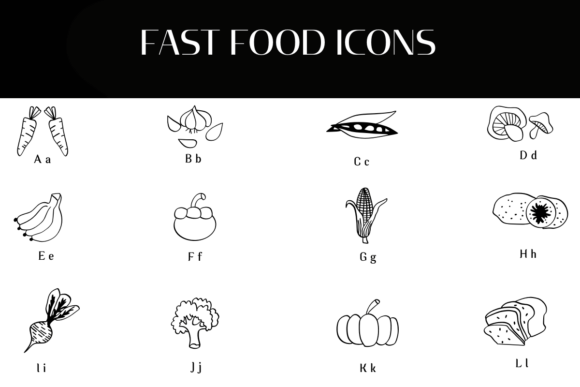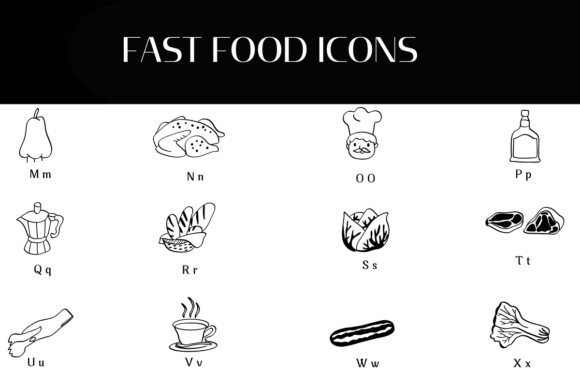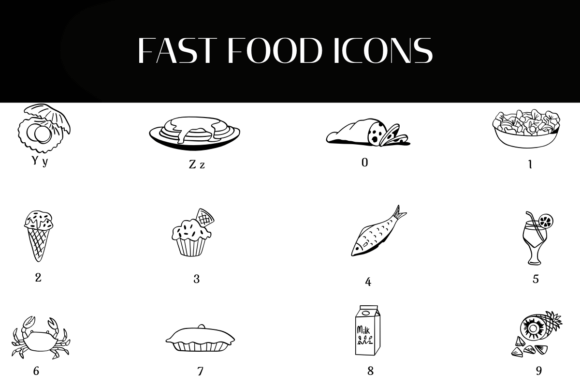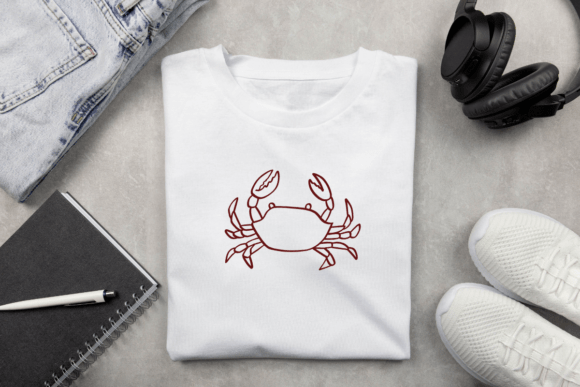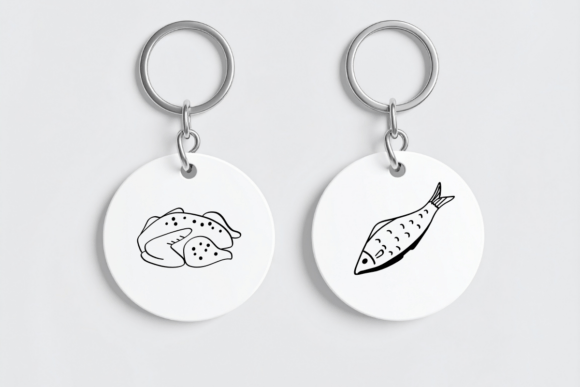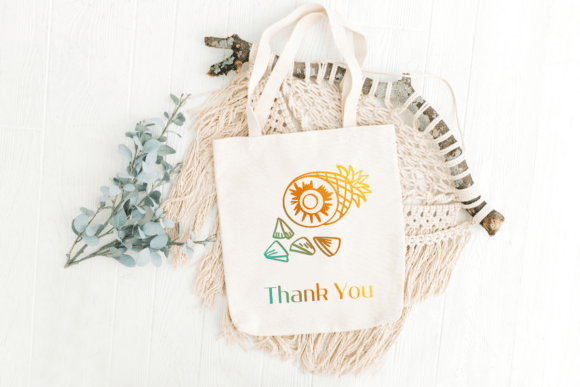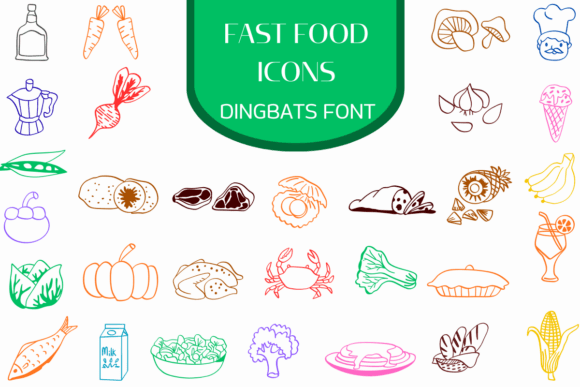
Introducing Fast Food Icons Font: Transform Your Designs with a Delicious Collection of Culinary Icons
Are you a foodie, designer, or crafty enthusiast looking to add a pinch of creativity to your projects? Look no further than Fast Food Icons Font, a mouth-watering dingbats font that turns your keyboard into a kitchen. This comprehensive collection features a vast array of hand-drawn illustrations, from fresh garden vegetables and succulent meats to sweet desserts and refreshing beverages.
A Font That’s a Feast for the Eyes
Fast Food Icons Font is a carefully crafted collection of icons designed to satisfy your culinary creative cravings. Each icon is meticulously drawn with clean, expressive line work, making it easy to add professional culinary art to your projects with just a single keystroke. The font’s versatility makes it perfect for a wide range of applications, from menu design and food blog graphics to restaurant branding, packaging, and educational worksheets.
Whether you’re a seasoned designer or a crafty enthusiast, Fast Food Icons Font offers endless possibilities for creative expression. Imagine being able to:
- Design menus that make your restaurant’s offerings look irresistible
- Create engaging food blog graphics that make your readers’ mouths water
- Develop a strong brand identity for your restaurant or food-related business
- Design eye-catching packaging that showcases your products in the best light
- Create educational worksheets that make learning about food fun and interactive
What Makes Fast Food Icons Font So Special?
So, what sets Fast Food Icons Font apart from other icon collections? Here are just a few reasons why this font is a must-have for designers and crafters:
- Hand-drawn illustrations: Each icon is carefully crafted with love and attention to detail, giving your projects a personal touch.
- Clean and expressive line work: The font’s clean lines and expressive illustrations make it easy to add a professional touch to your projects.
- Comprehensive collection: With a wide array of icons to choose from, you’ll find everything you need to create cohesive and engaging designs.
- Easy to use: Simply type on your keyboard to add these delicious icons to your projects – no complicated design software required.
Get Creative with Fast Food Icons Font
Best Use Cases for Fast Food Icons Font
Here are some of the best use cases for Fast Food Icons Font:
- Menu design: Create menus that showcase your restaurant’s offerings in a clear and appetizing way.
- Food blog graphics: Add engaging graphics to your food blog that make your readers’ mouths water.
- Restaurant branding: Develop a strong brand identity for your restaurant or food-related business.
- Packaging design: Design eye-catching packaging that showcases your products in the best light.
- Educational worksheets: Create interactive and engaging educational worksheets that teach kids about food.
In conclusion, Fast Food Icons Font is a versatile and delicious dingbats font that’s perfect for designers, foodies, and crafty enthusiasts alike. With its comprehensive collection of hand-drawn illustrations, clean line work, and ease of use, this font is sure to add a pinch of creativity to your projects. So go ahead, turn your keyboard into a kitchen, and get creative with Fast Food Icons Font!